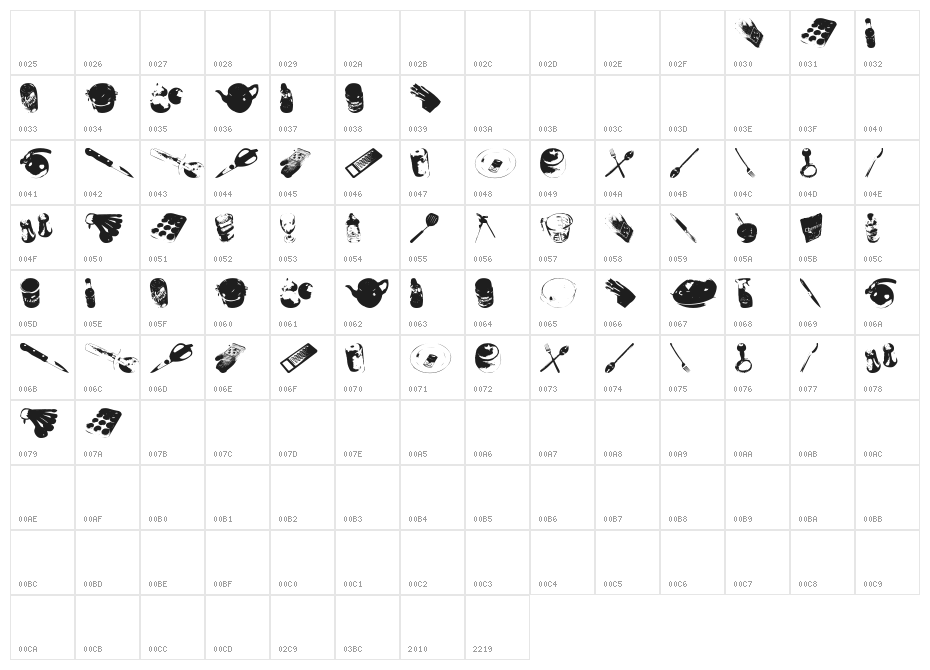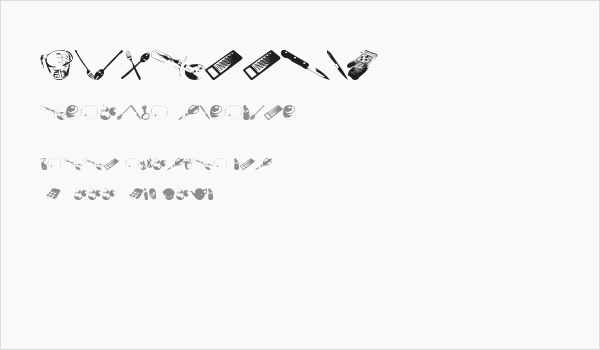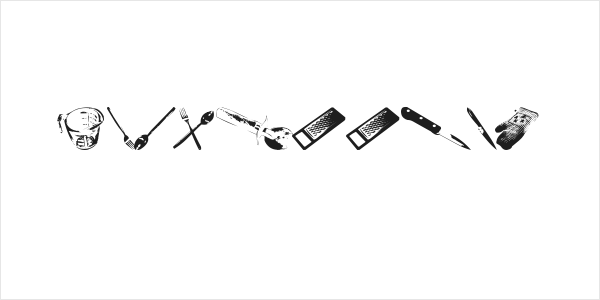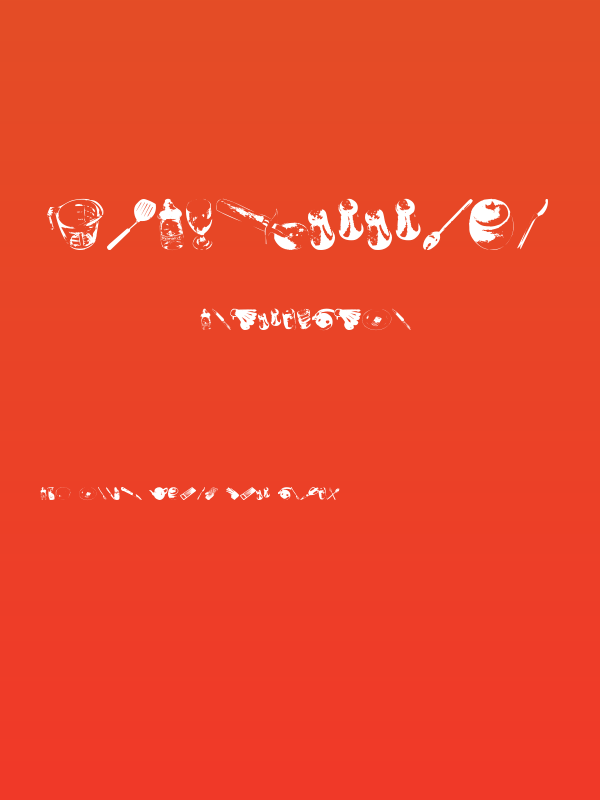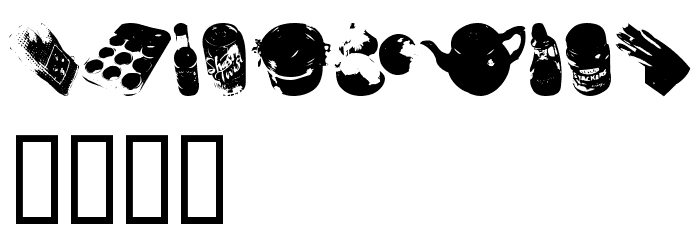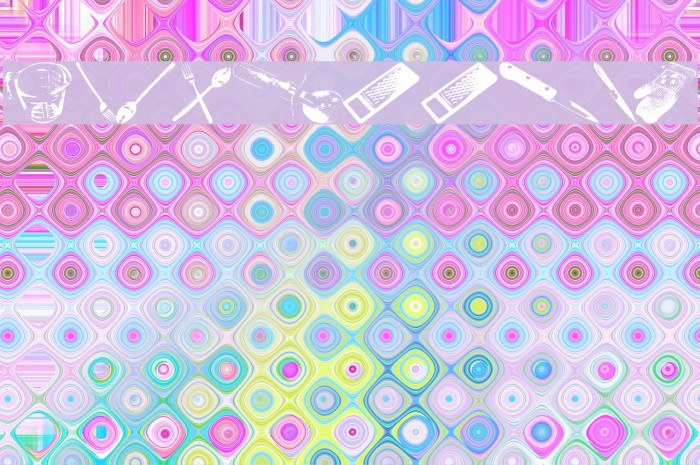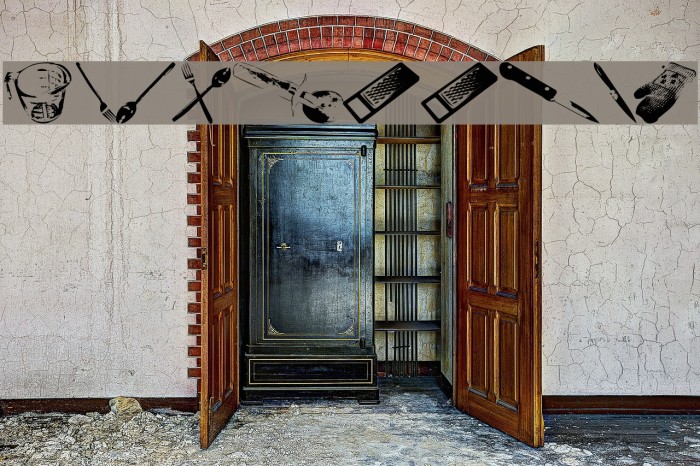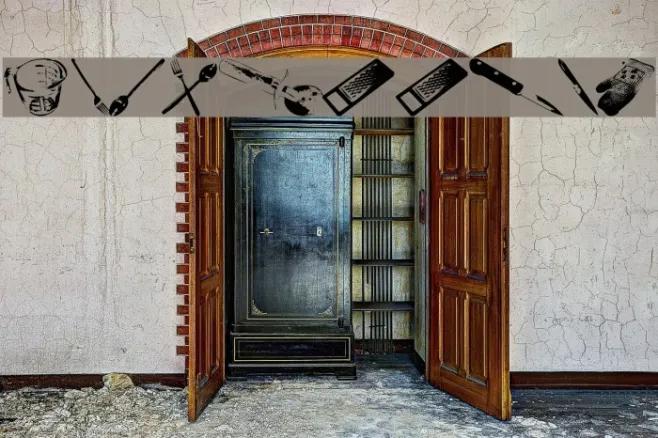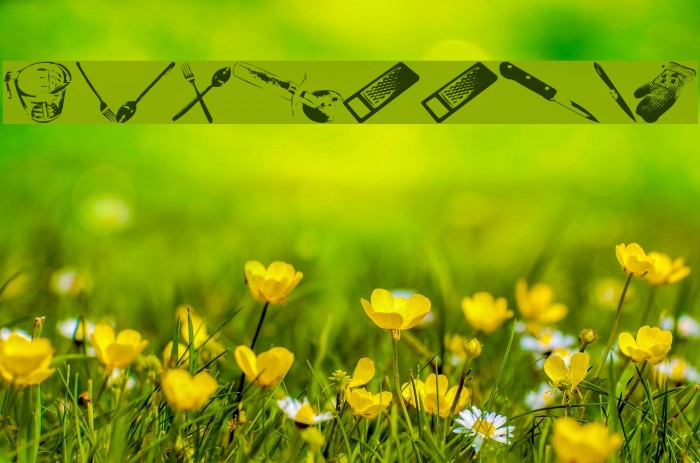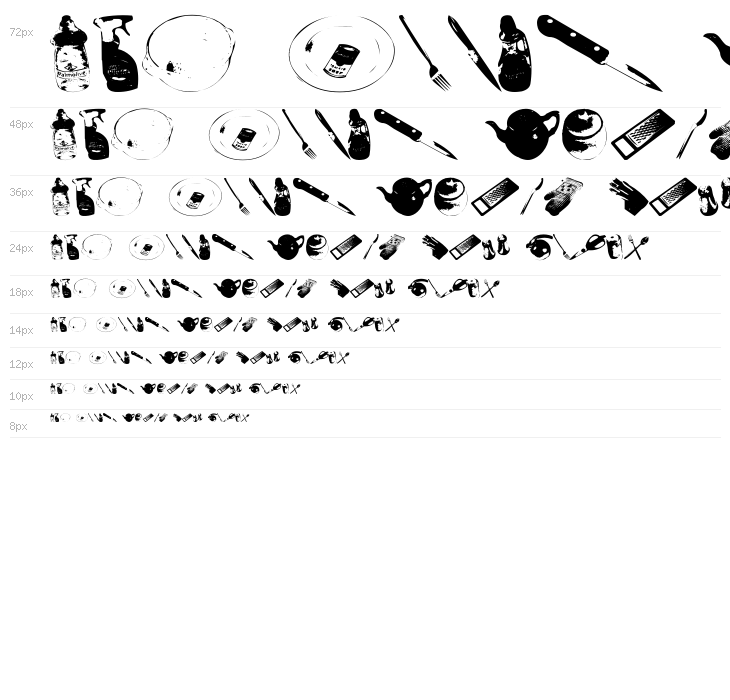
WutsCookin Font
WutsCookin Description
This font is composed of kitchen and cooking utensil illustrations forming each character, resulting in a playful and highly decorative style. The glyphs are detailed and complex, with each letter or symbol represented by a unique arrangement of culinary tools and ingredients.
| Overall Style | Decorative, Playful, Thematic |
| Use Case | Logos, Headlines, Posters, Themed invitations |
| Proposed Projects | Food blogs, restaurant branding, cooking class flyers, culinary event posters, children's cookbooks. |